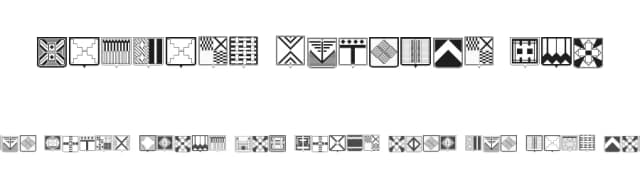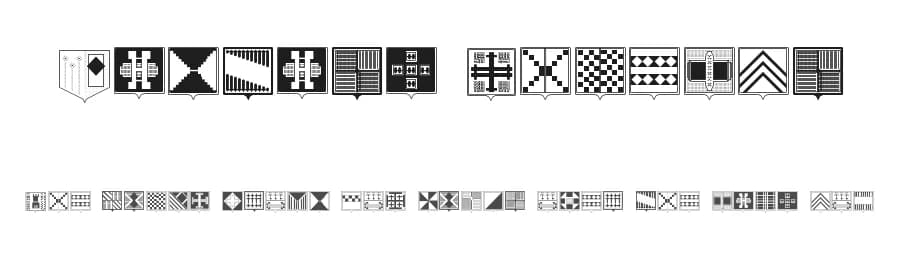
About Fantasy Shields Font
Fantasy Shields is a dingbat font designed by Scratch. It includes 66 glyphs, a regular weight, TTF (TrueType) format, and 89 languages. Fantasy Shields is free to download; check the license details on this page before commercial use. Dingbat fonts like Fantasy Shields work best for icons, ornaments, bullet points, and decorative accents.
Fantasy Shields Font is a versatile dingbats font that works for both headings and body text. Pair it with a contrasting sans-serif or serif font to add visual interest and a clear distinction between titles and body copy.
Fantasy Shields Font is a dingbats typeface by Scratch, ideal for logos, invitations, branding, and creative projects.